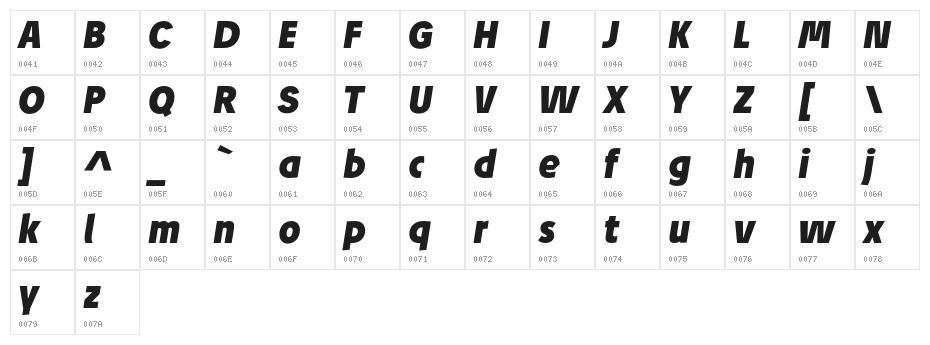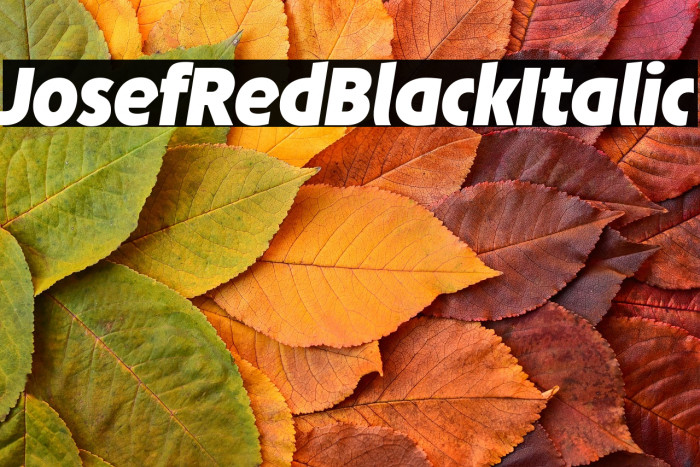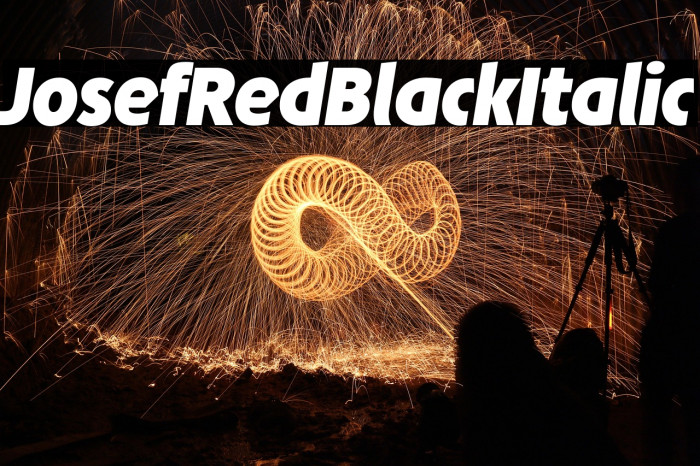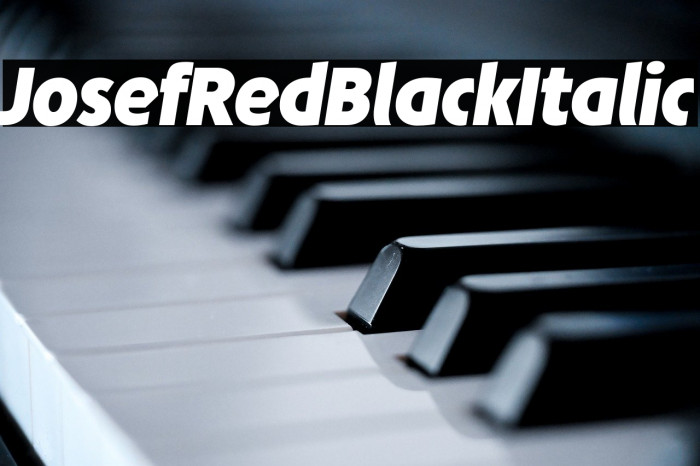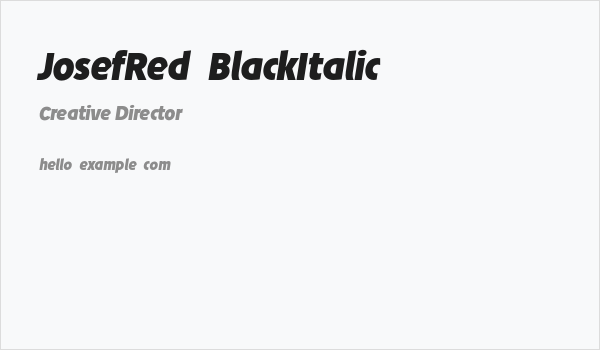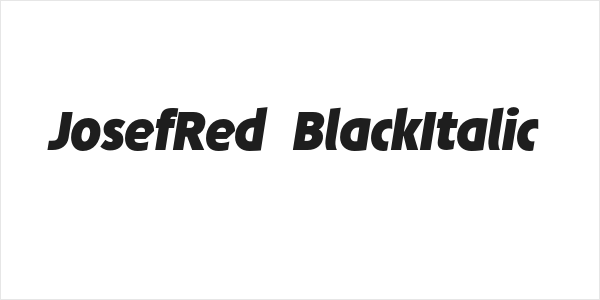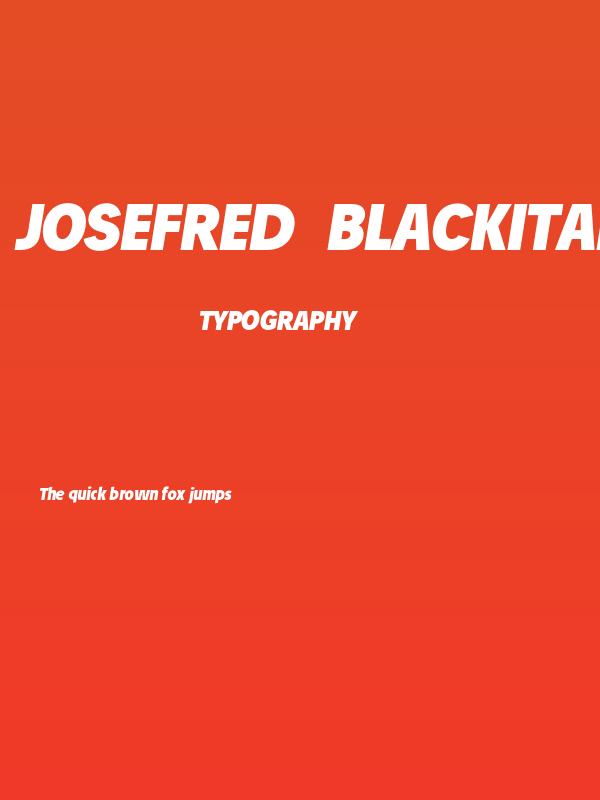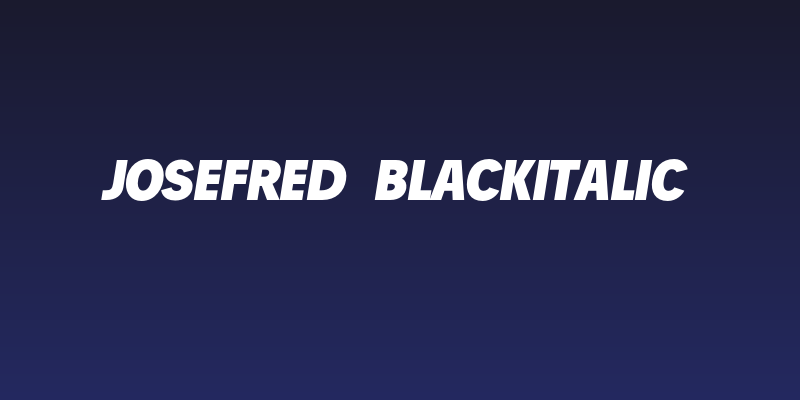
JosefRed-BlackItalic Font
JosefRed-BlackItalic Description
This typeface features bold, italicized characters with a strong presence. The letters are slightly slanted, giving a dynamic and forward-moving appearance. The strokes are thick and consistent, providing a robust and impactful look. The uppercase and lowercase letters maintain a uniform style, with rounded edges that soften the overall boldness. The numbers and special characters are designed to match the bold and italicized style, ensuring consistency across all elements. This font is ideal for making statements and capturing attention with its assertive and modern design.
| Proposed Projects | Ideal for headlines, posters, branding, and advertising where a strong impact is needed. |